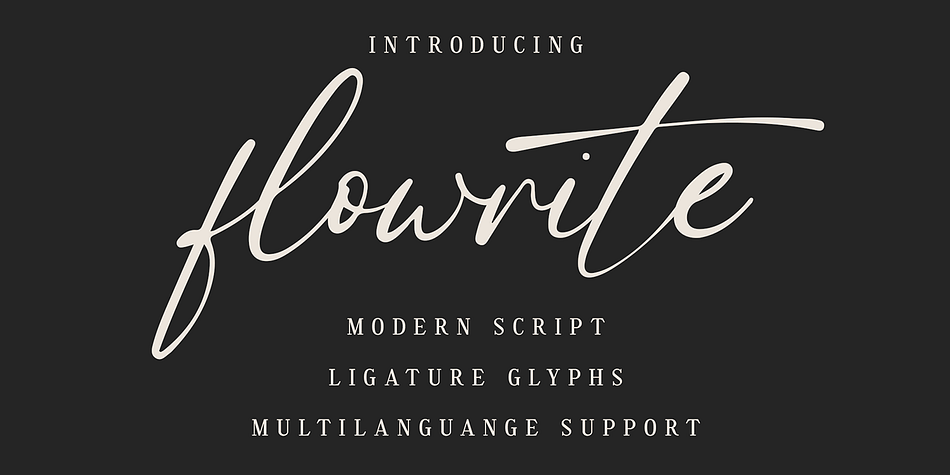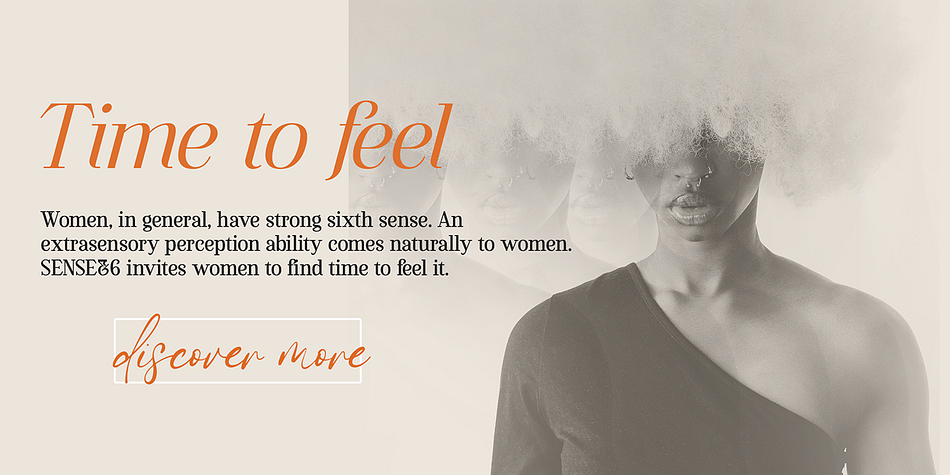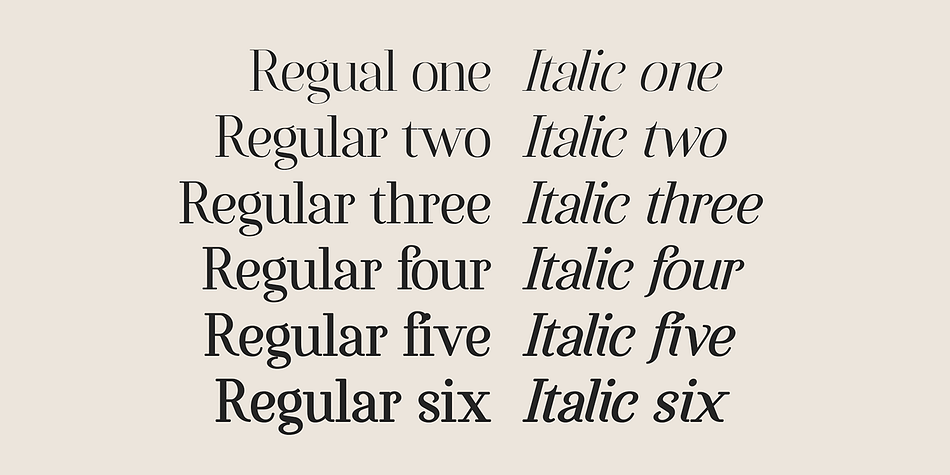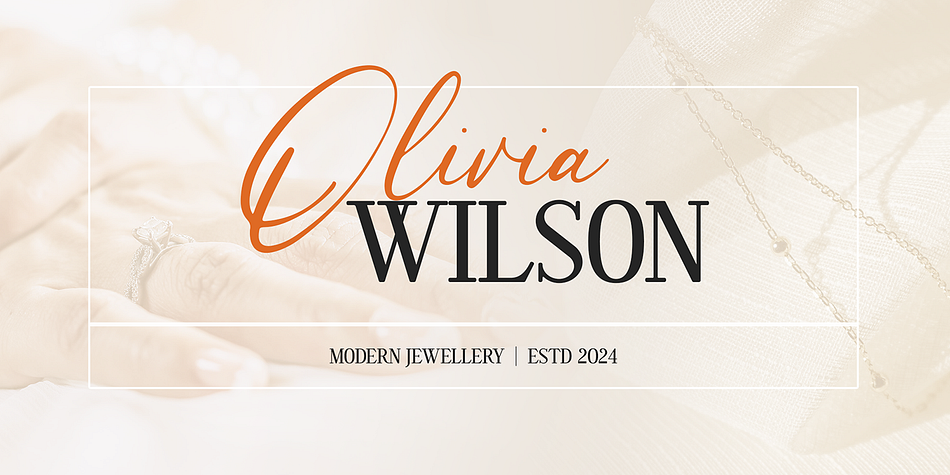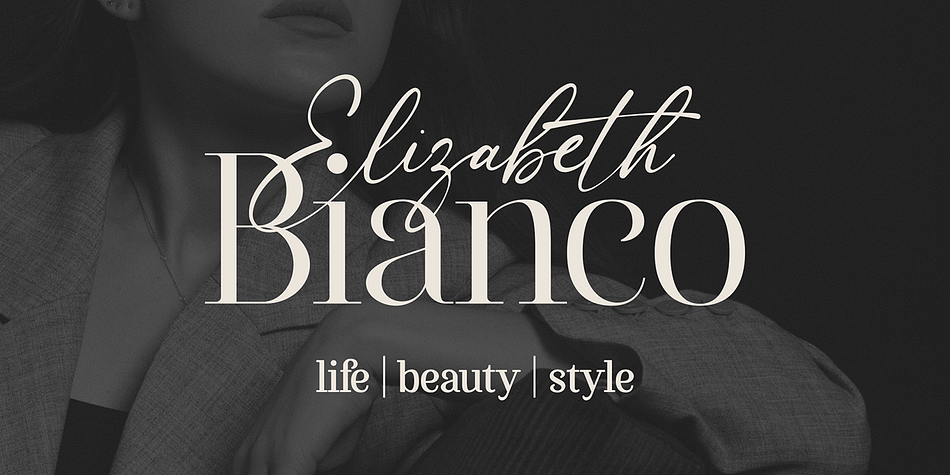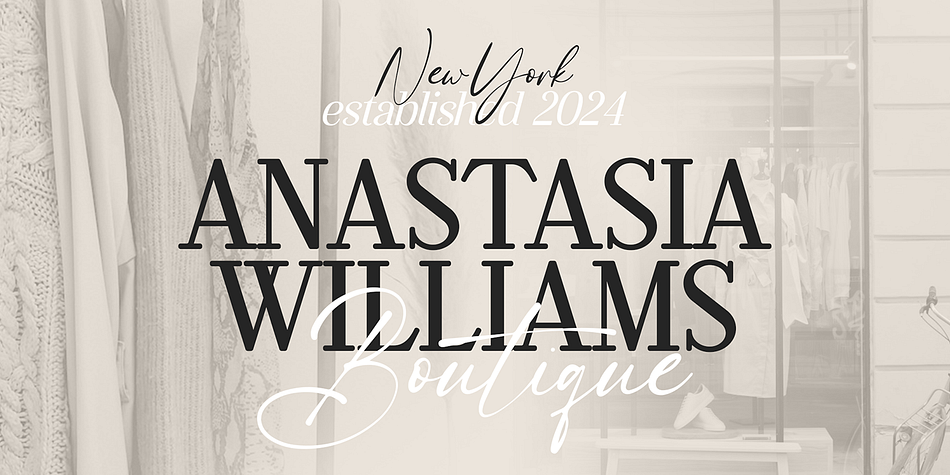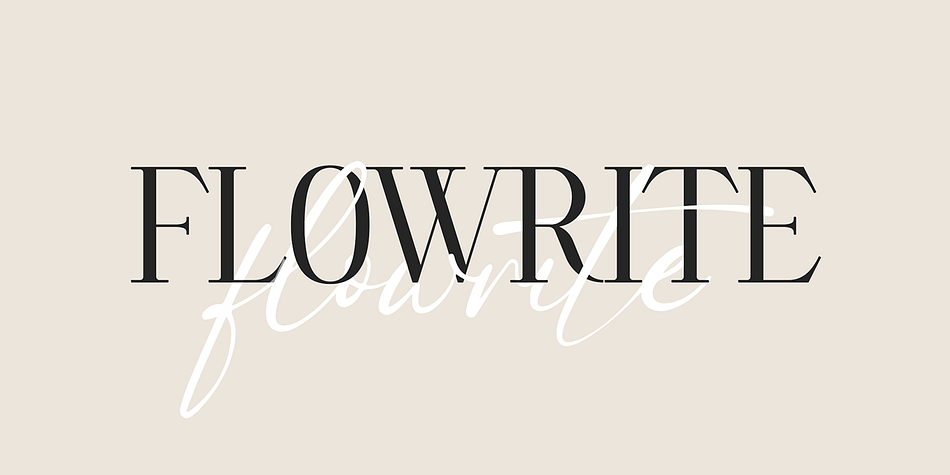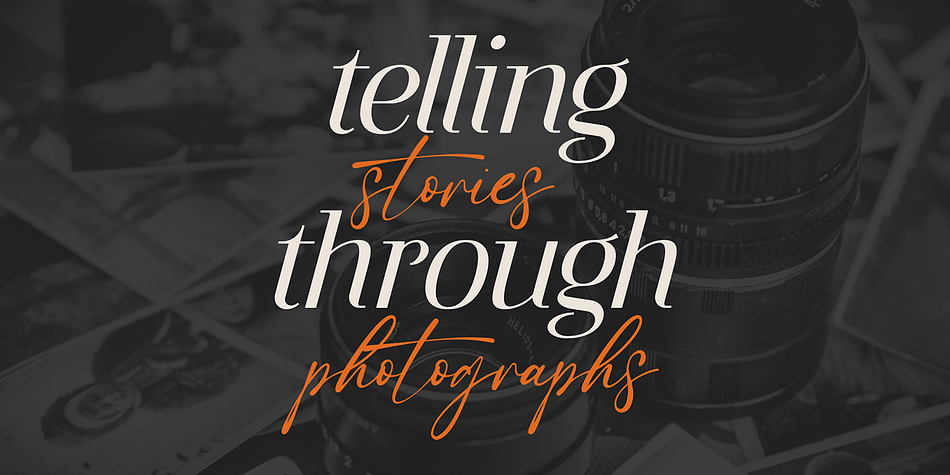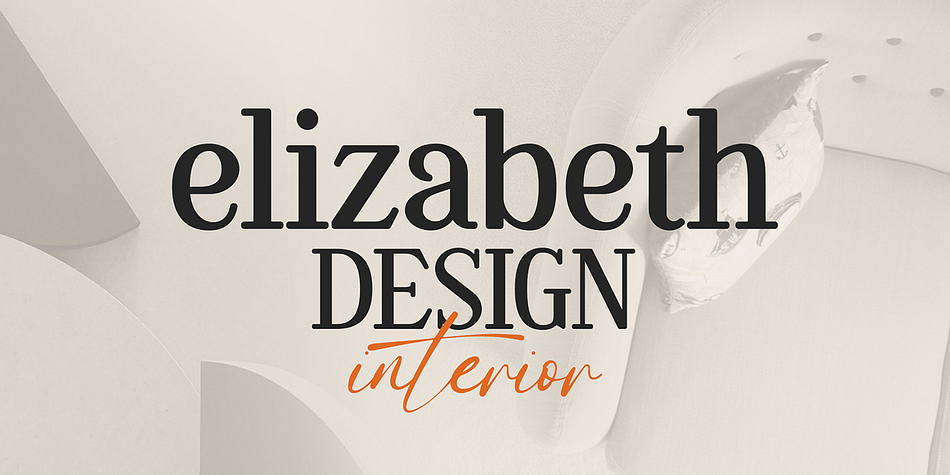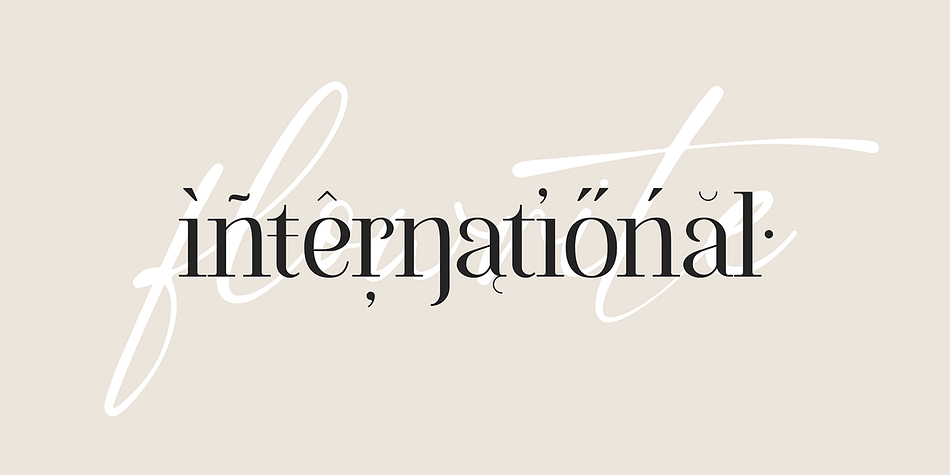
Flowrite
Flowrite is a serif font family. This typeface has thirteen styles and was published by VPcreativeshop.
The Flowrite typeface combines timeless elegance with modern flair. It offers six weights in both regular and italic, alongside a stylish script in modern calligraphy. Designed for broad appeal, Flowrite supports 87 languages, perfect for global communication in branding, editorial, and design.